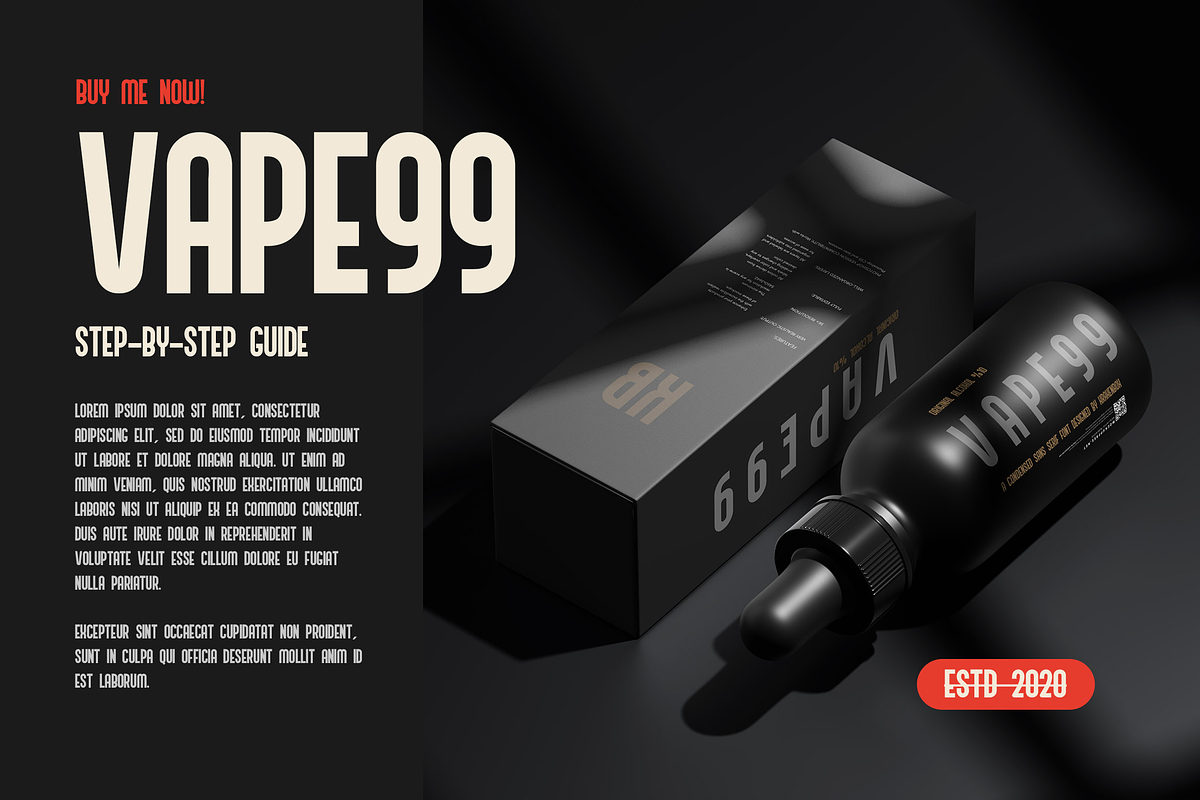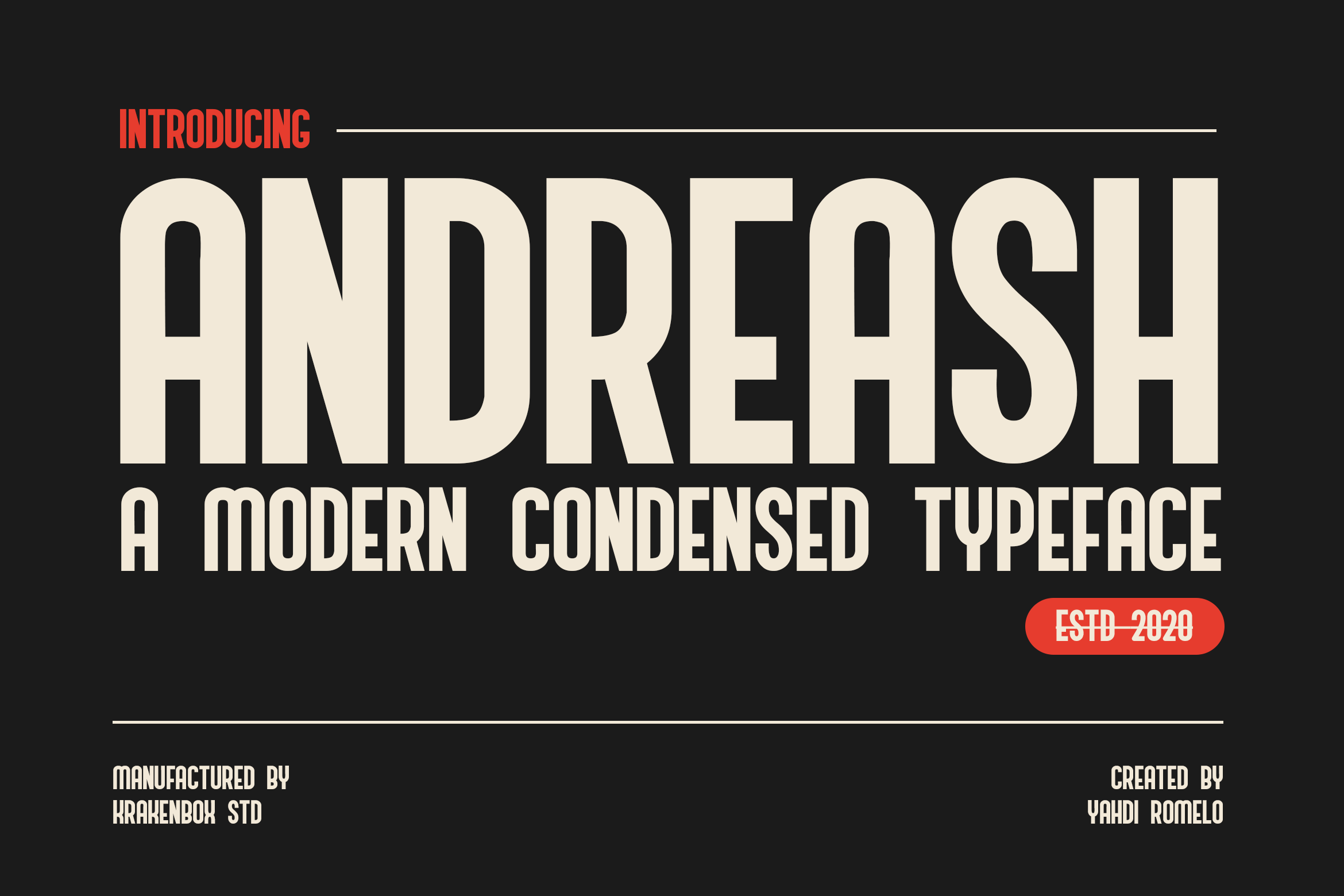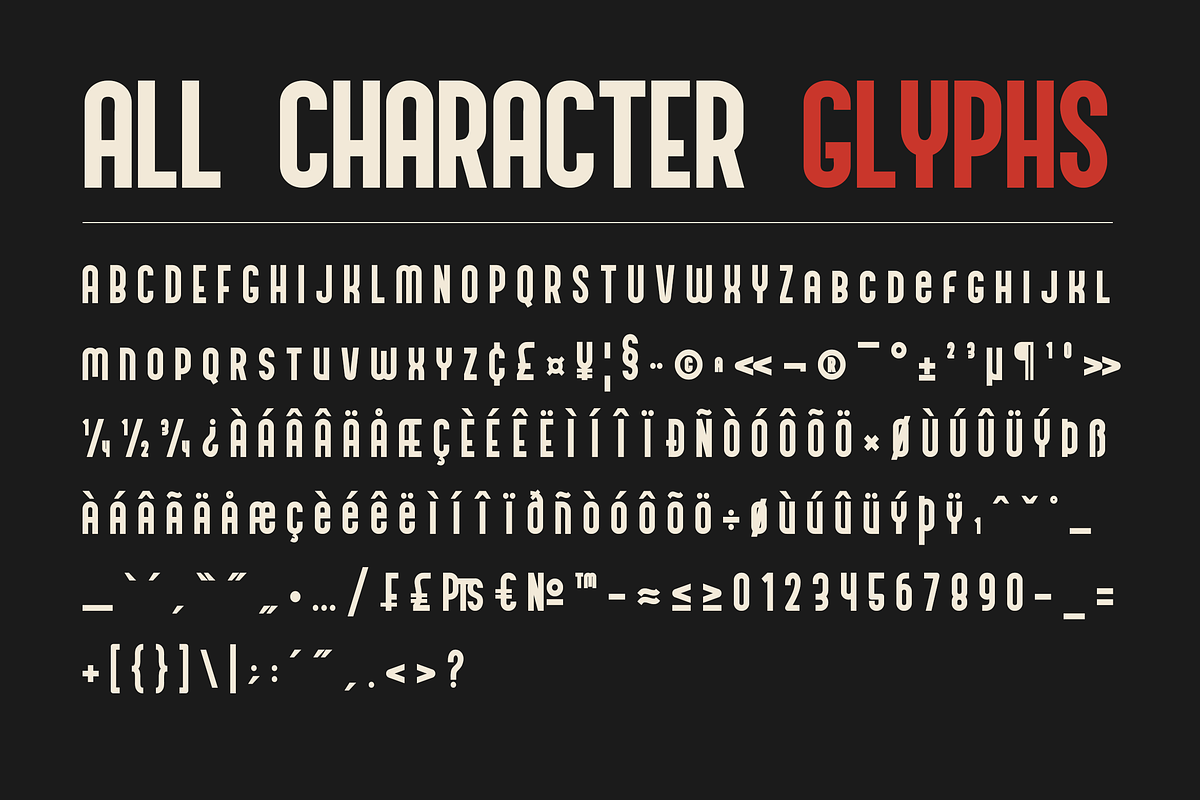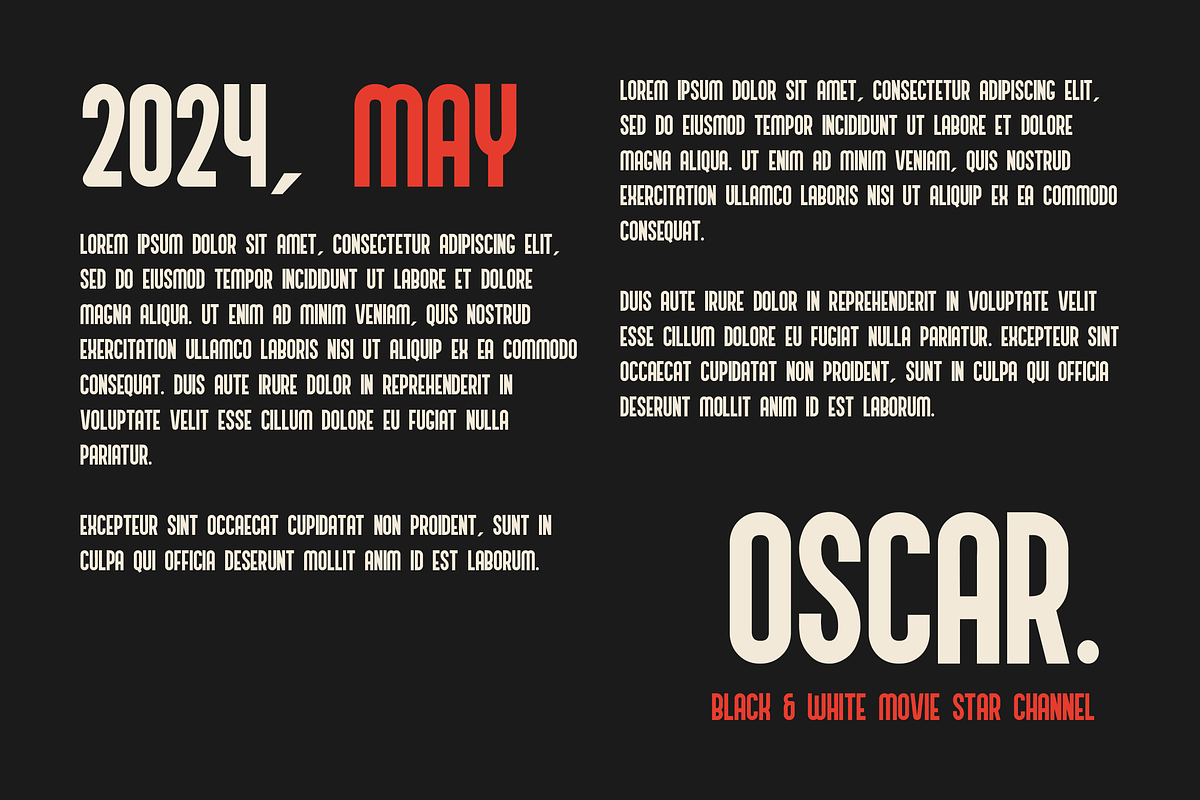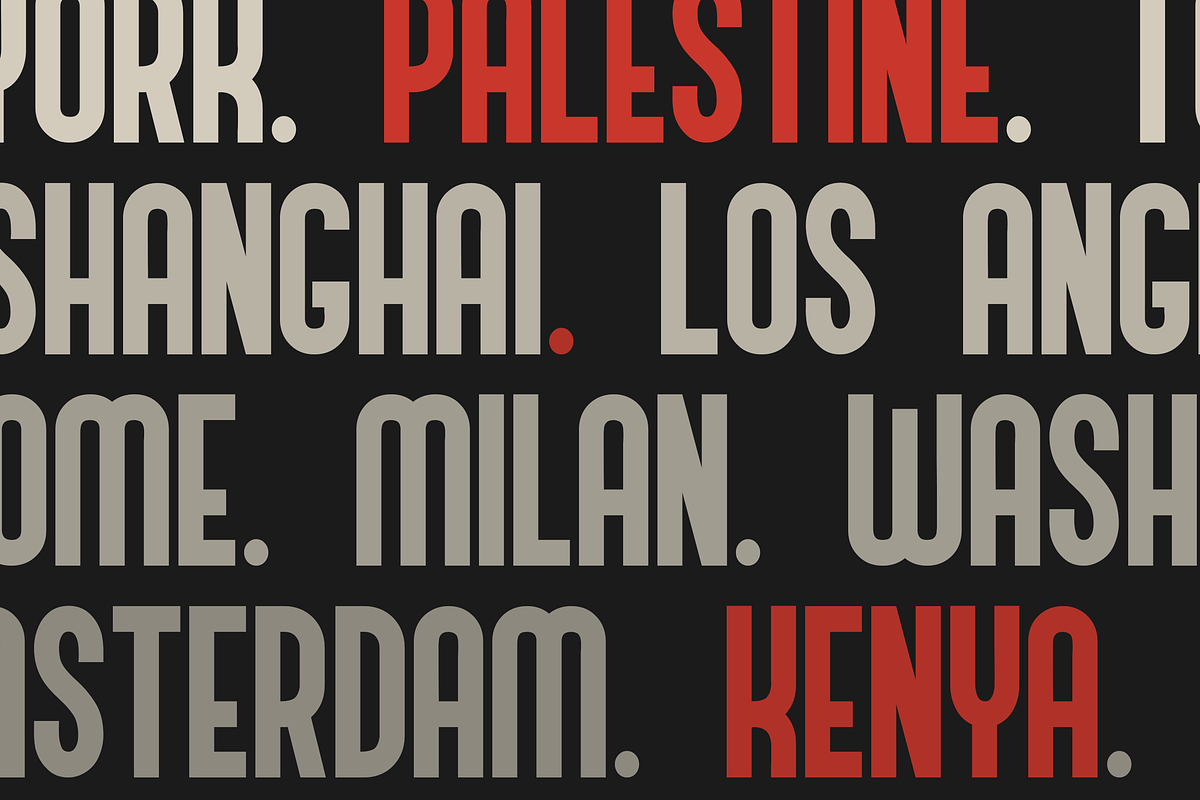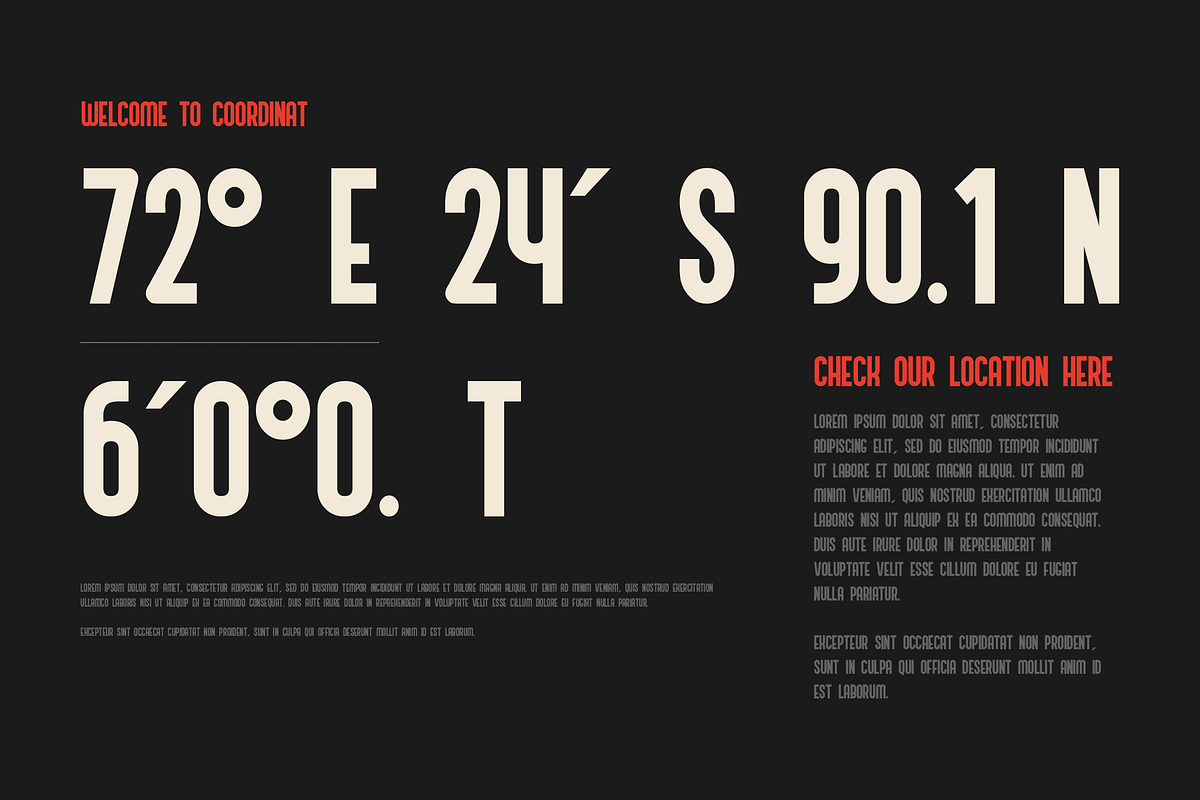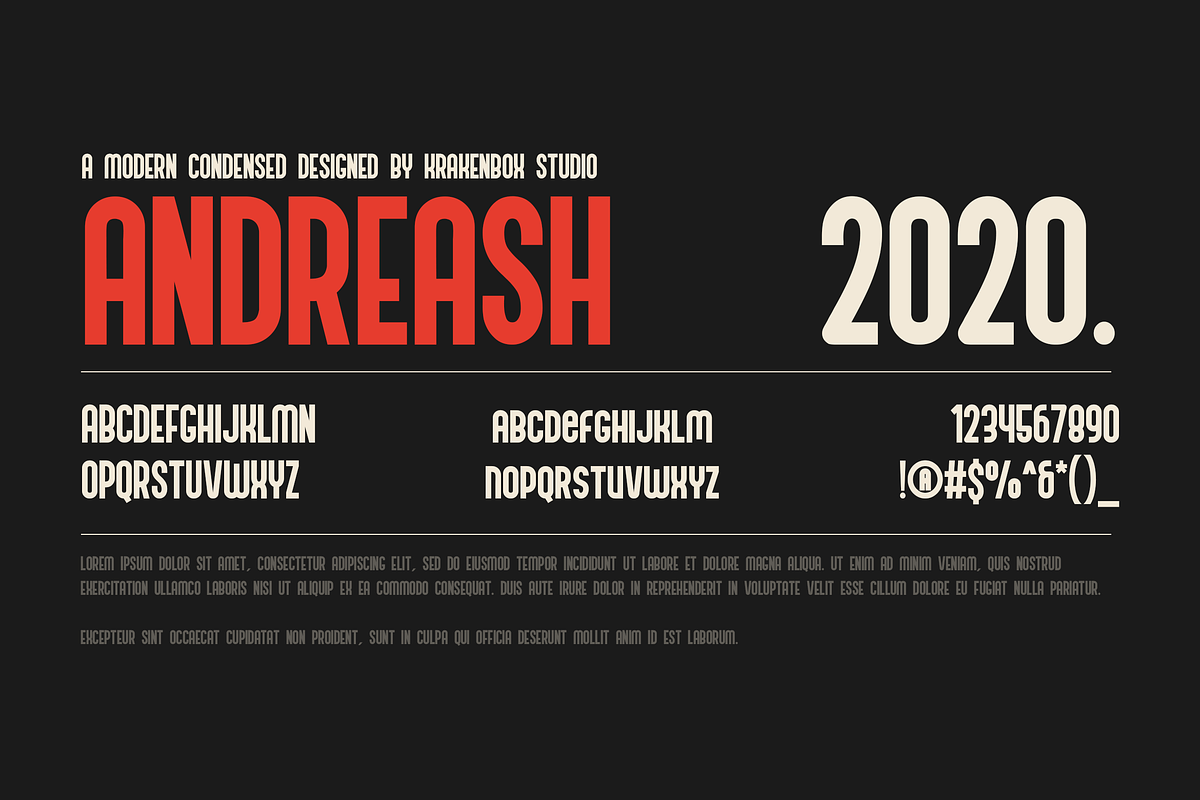
Andreash - Modern Condensed Typeface
Introducing Andreash, a condensed typeface meticulously crafted to bring clarity and sophistication to your design projects. With its clean lines and balanced proportions, Andreash offers a versatile canvas for your creativity, allowing your content to shine with clarity and precision.
Perfect for a wide range of applications, from corporate branding to web design and beyond, Andreash exudes professionalism and modernity at every turn. Its understated elegance and timeless appeal make it the ideal choice for conveying a sense of trustworthiness and reliability in any context.
Elevate your designs with Andreash’s crisp typography and impeccable legibility, ensuring that your message is always delivered with clarity and impact. Whether you’re crafting sleek logos, sleek headlines, or sleek body text, this font is the perfect companion for bringing your vision to life with style and sophistication.